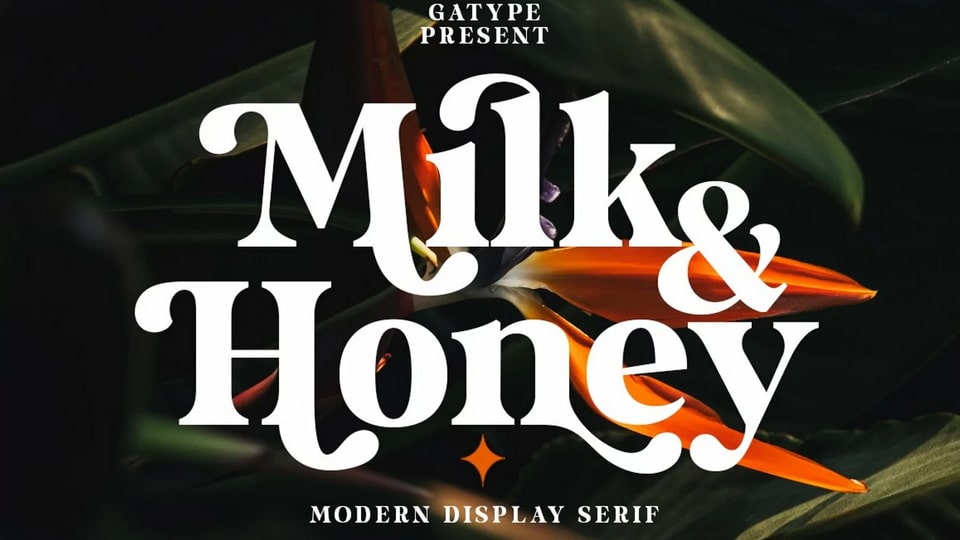
Download Milk And Honey font, a modern vintage serif typeface with classy style for a luxurious and elegant look. A unique, fun and versatile serif font to enhance any design you love.